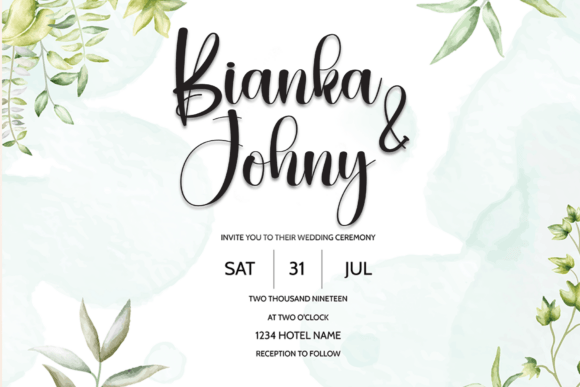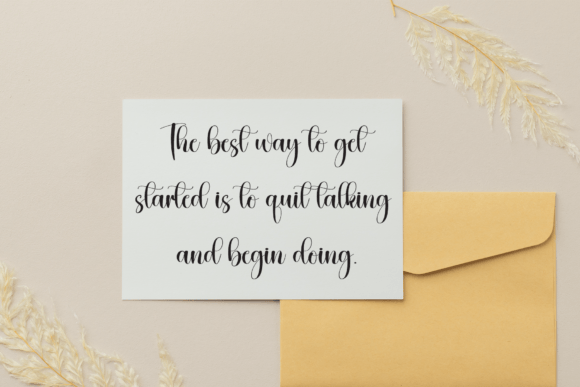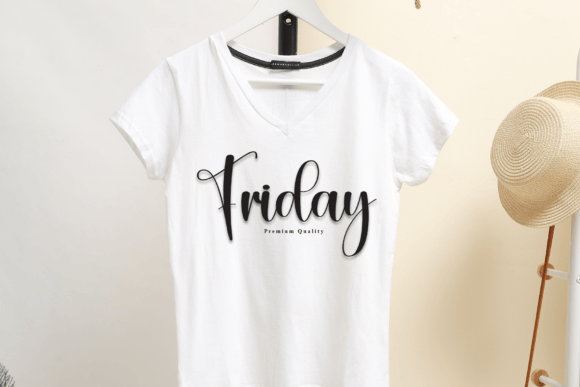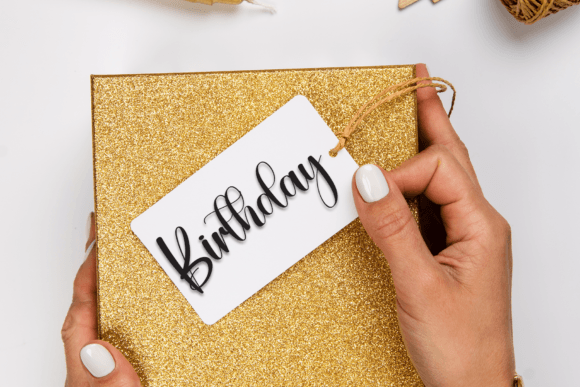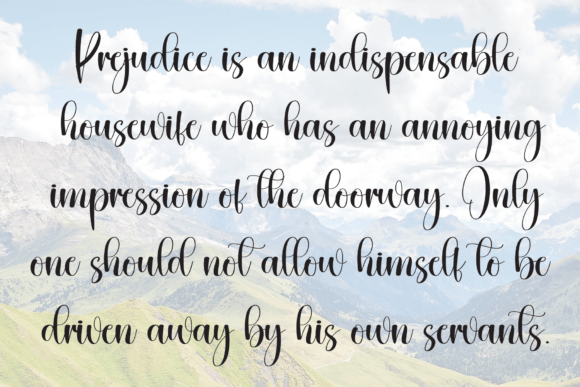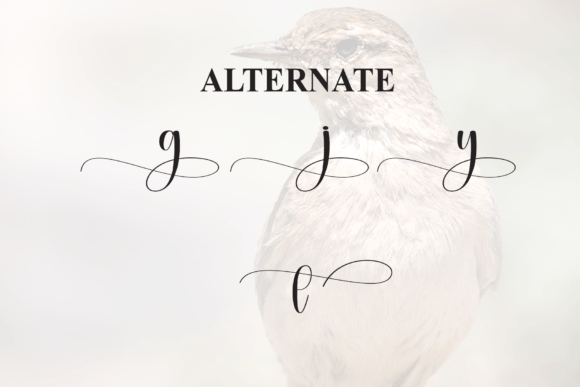
Introduction to Nightingale Font
Have you ever been brainstorming a creative project and suddenly, the perfect font pops into your head? For many designers, that moment is pure magic. It’s the moment when everything comes together, and your design takes on a life of its own. For me, that moment happened when I stumbled upon the Nightingale Font. This stunning script font is a game-changer, and I’m excited to share its story with you.
The Nightingale Font is a free download that offers high-quality, elegant script typography. Its transparent background and delicate lines make it perfect for a wide range of design projects, from wedding invitations to business cards. Whether you’re a seasoned designer or just starting out, this font is an invaluable resource that will elevate your creative work.
As a valuable addition to any designer’s toolkit, the Nightingale Font is a must-have for any creative project that requires a handwritten touch. Its versatility and beauty make it an ideal choice for logos, quotes, greeting cards, and more.
Key Features of Nightingale Font
- High-quality, elegant design suitable for creative projects and design resources.
- Transparent background, allowing for seamless integration into digital designs.
- Comes in a range of font sizes and resolutions, making it versatile for various design applications.
- Designed to be highly legible, with clear and crisp typography.
- Perfect for use in digital designs, such as website headers, social media graphics, and more.
Honest Review: Nightingale Font
I recently stumbled upon the Nightingale Font, and I must say it’s been a game-changer for my creative projects. This beautiful font is a high-quality design resource that’s perfect for any project that requires a touch of elegance and sophistication.
What works well about the Nightingale Font is its versatility. It’s available for free download, which makes it a great addition to any designer’s collection. The font is also fully scalable, making it perfect for use in a variety of creative projects, from print to digital design.
- ✨ Elegant and sophisticated design
- ✨ High-quality, transparent background
- ✨ Perfect for print and digital design
However, there are a few limitations to consider. The Nightingale Font only comes in one weight, which may limit its use in certain projects. Additionally, the font may not be suitable for use in very small sizes, as the details may become difficult to read.
Overall, I’m thoroughly impressed with the Nightingale Font. Its elegant design, high-quality rendering, and free download make it a valuable resource for any designer. While it may have a few limitations, I highly recommend it for any creative project that requires a touch of sophistication.
Nightingale Font
The Nightingale Font is a high-quality, free download design resource perfect for any creative project. With its elegant and sophisticated design, this font is ideal for those looking to add a touch of class to their work.
Getting the Most Out of Nightingale Font
For the best results, use the Nightingale Font on a transparent background to create a clean and elegant look. Experiment with different font sizes and colors to add depth and interest to your design.
The Nightingale Font is ideal for a wide range of creative projects, including wedding invitations, business cards, and marketing materials. Its high-quality design and free download make it a valuable resource for designers of all levels.